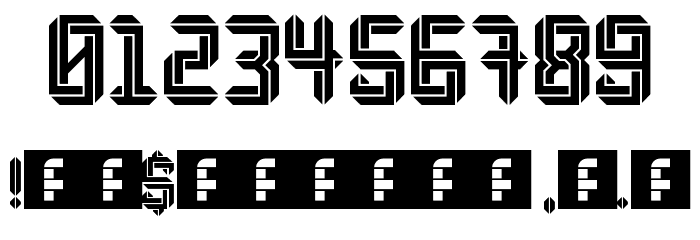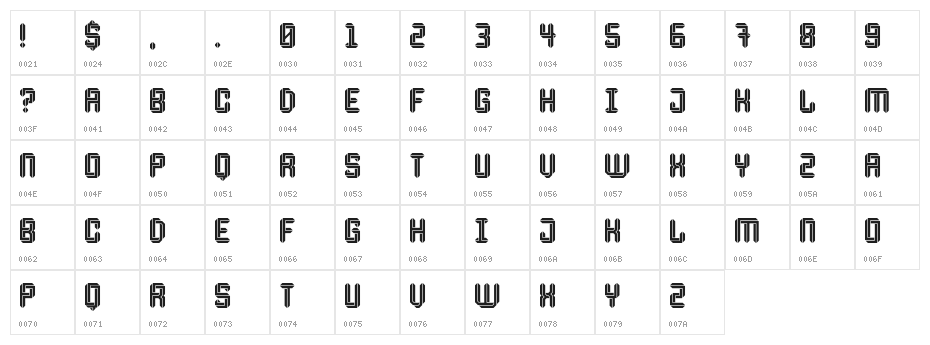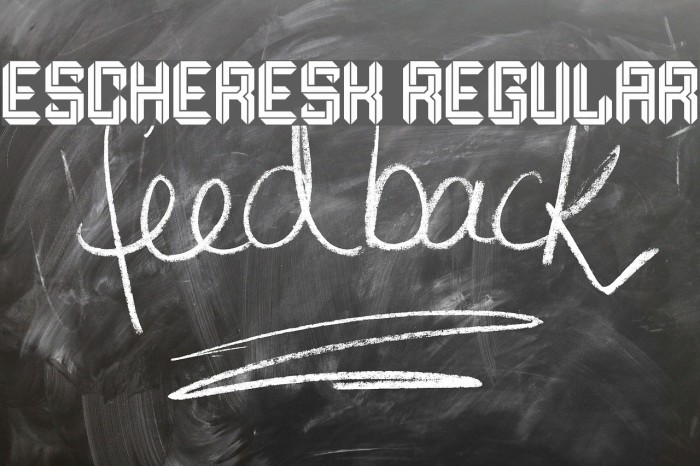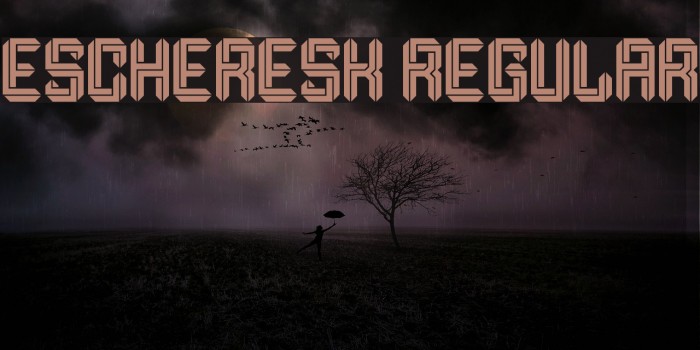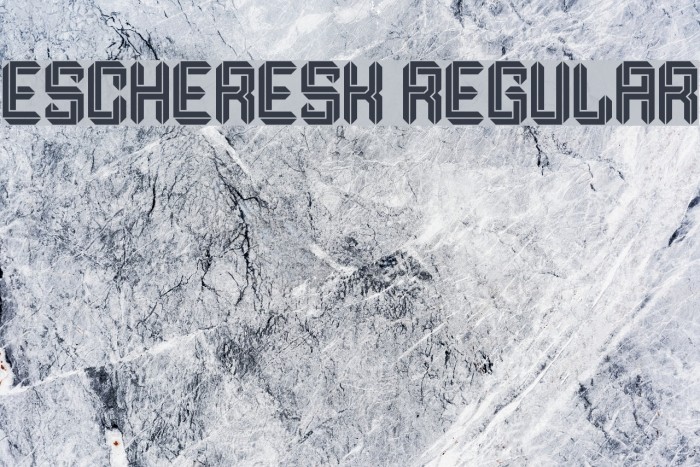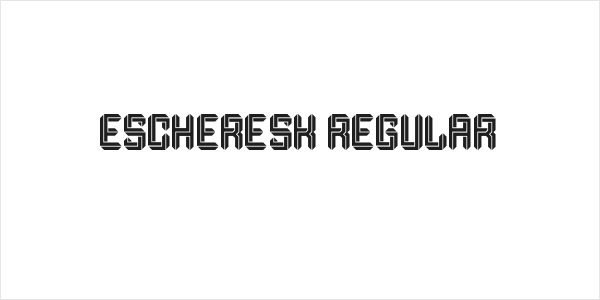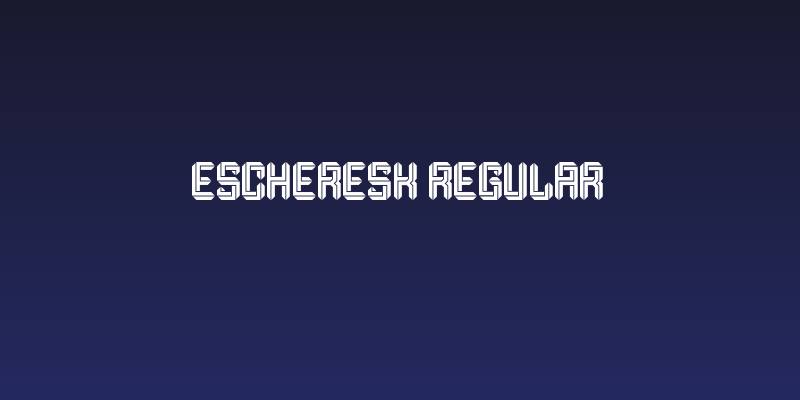
Escheresk Regular Font
Escheresk Regular Description
This font features a bold, geometric design with a three-dimensional effect, reminiscent of optical illusions. The characters are constructed with sharp angles and distinct lines, creating a sense of depth and movement. Each letter is uniquely stylized, with a consistent pattern that gives the font a cohesive look. The uppercase and lowercase letters maintain the same structural theme, while the numbers and special characters complement the overall design. This font is visually striking and commands attention, making it ideal for projects that require a strong visual impact.
| Proposed Projects | Ideal for posters, album covers, branding, and any project that requires a bold, eye-catching typeface. |